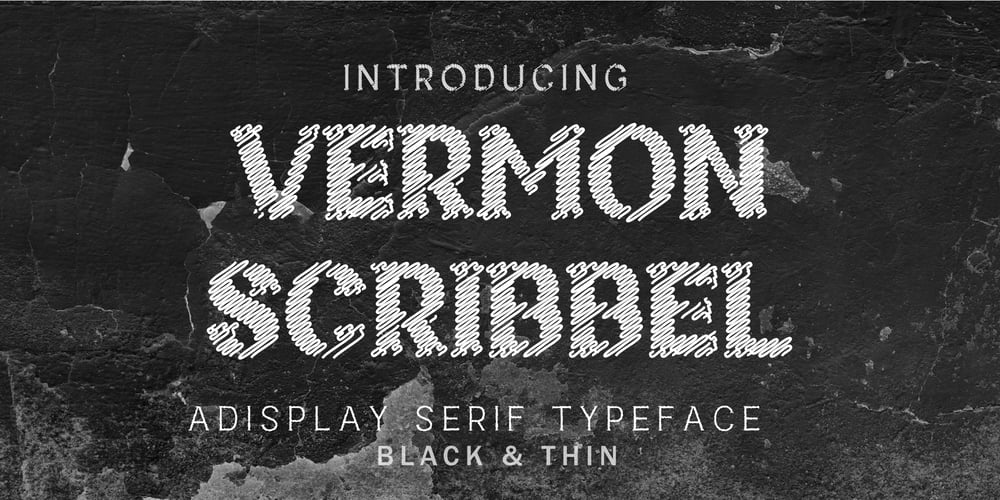
Vermon Scribbel Font Family was designed by Reza Mukhtazar and published by Rezastudio. Vermon Scribbel contains 2 styles and family package options. Vermon Scribbel This is a perfect playful font for any project. Be sure to click on the image to see all elements. This product was created to help you make your digital images even more beautiful and unique.This pack can be used to create anything; logos invitation cards, wedding cards, birthday cards, home decor, packaging holiday gifts, party decorations, print on fabrics and so much more.